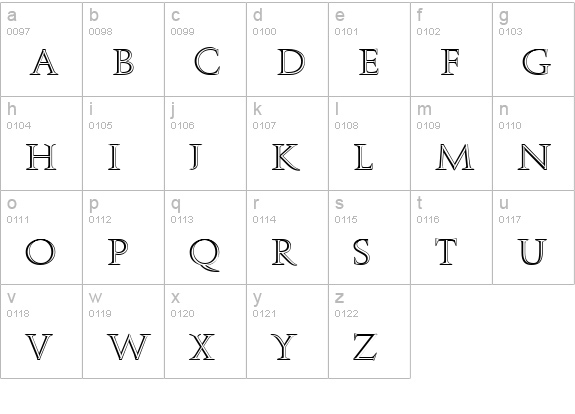
RomanStonecut Font Details
RomanStonecut is a classic and elegant font that exudes sophistication and timelessness. Its clean lines and sharp edges give it a sense of strength and authority, making it perfect for formal or professional designs. The stonecut-inspired design adds a unique touch to any project, adding a sense of history and tradition. This versatile font is suitable for a wide range of applications, from logos and branding to headlines and editorial design. Its bold presence commands attention and ensures that your message is communicated loud and clear. Best of all, RomanStonecut is available for free download at FontsMarket.com, making it accessible to all designers and creatives looking to elevate their work with this stunning font. Don't miss out on the opportunity to add RomanStonecut to your font collection today!